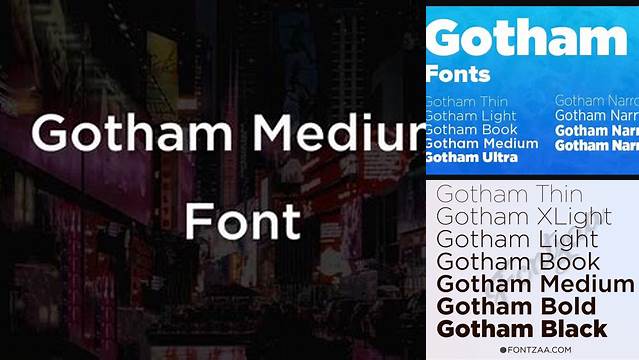
Hey everyone, are you looking to download Gotham Black Medium font for free? You've come to the right place! This article is your ultimate guide, packed with everything you need to know about this awesome font. We'll cover where to find it, how to install it, and even some cool ways to use it. So, let's dive in and get you set up with this fantastic typeface! Gotham Black Medium is a versatile font, perfect for a wide range of design projects. Whether you're working on a website, a print design, or a branding project, this font can make your work look professional and stylish. It's a favorite among designers because of its clean lines and modern aesthetic. Getting your hands on Gotham Black Medium is easier than you might think, and the free download options we'll explore will ensure you can start using it right away. Ready to enhance your designs? Let's get started!
Why Gotham Black Medium is a Designer's Dream
Alright, guys, let's talk about why Gotham Black Medium font is such a big deal in the design world. This font isn't just any typeface; it's a statement. Think of it as the backbone of your design, providing a solid foundation that complements any project. Its bold and clean appearance makes it incredibly readable, which is super important whether you're designing a website, a poster, or a magazine layout. What makes Gotham Black Medium stand out? Its versatility is a huge factor. It's a font that adapts to different styles and design needs. You can use it for headlines, subheadings, or even body text, and it always looks great. This adaptability makes it a go-to choice for designers working on a variety of projects. The font's simplicity is key. In a world of overly complex fonts, Gotham Black Medium offers a refreshing sense of clarity. It's not cluttered or distracting, which allows your message to shine through. This clean aesthetic makes it a great choice for projects where you want to emphasize the content rather than the font itself. The font's popularity is a testament to its quality and effectiveness. From corporate branding to creative projects, Gotham Black Medium is used by professionals everywhere. You'll find it in a variety of media, from websites and apps to print materials. This widespread use shows its reliability and its ability to make your work look professional. Furthermore, the font's aesthetic appeal is timeless. It doesn't feel dated or trendy, which means your designs will remain relevant for years to come. This is a valuable asset, especially if you're working on projects that require longevity. The font's design is also about legibility and impact. Its strong presence ensures that your headlines grab attention, while the carefully crafted letterforms maintain clarity even at smaller sizes. This means that Gotham Black Medium not only looks good but also performs well in various contexts. In short, Gotham Black Medium is more than just a font. It's a tool that empowers designers to communicate effectively, with style and clarity. It is no wonder that it's a favorite.
Gotham Black Medium in Action: Creative Uses and Design Tips
Alright, now that you've got Gotham Black Medium font installed, let's talk about how to make the most of it. This font is incredibly versatile, so the design possibilities are nearly endless. One of the best things about Gotham Black Medium is its ability to create a strong visual impact. It works wonders for headings and titles. Use it to make your main messages pop out and grab attention. It's perfect for websites, posters, and any design where you want to make a bold statement. Gotham Black Medium is also excellent for creating a modern, clean look. Its clean lines and simple design make it a great choice for minimalist designs. You can pair it with other fonts that complement it, or you can let it stand out on its own. Think about using it for logos, branding materials, and anything that needs a sophisticated touch. This font is a great choice for both print and digital designs. It is readable and looks good in various sizes, making it perfect for everything from website navigation to posters. Make sure you use it for things like brochures, business cards, and other promotional materials. It's also great for digital interfaces. The font's readability and style make it perfect for website design and app interfaces. Use it for headlines, menu items, and body text to create a consistent, professional look. When working with Gotham Black Medium, remember a few key design tips. First, consider pairing it with a different font for body text. A good rule of thumb is to use a font with a lighter weight for the body text to create a balanced look. The contrast between the bold headline and the lighter body text can create a visually appealing design. Experiment with sizes. Gotham Black Medium can look great in both large and small sizes. Adjust the font size to match the context of your design. Use it big for headlines, smaller for subheadings, and even smaller for body text. Be conscious of the letter spacing. Gotham Black Medium looks best when the letter spacing is adjusted just right. Try slightly increasing or decreasing the spacing to find what looks best for your design. Play with color and background. This font looks good in any color, so don't be afraid to experiment. Make sure there's enough contrast between the font and the background to make it easy to read. Consider the overall mood you want to create. Gotham Black Medium can be used in different designs, from serious corporate brands to creative projects. Make sure the font matches the mood and tone you're trying to convey.
Conclusion: Unleash Your Creativity with Gotham Black Medium
Alright, guys, we've covered everything you need to know about downloading and using Gotham Black Medium font. You've learned how to find it, how to install it, and how to get creative with it. Now it's time to go out there and start designing! This fantastic font will make your designs look more professional and eye-catching. Whether you're working on a website, a logo, or any other creative project, Gotham Black Medium is a versatile tool that can enhance your work. Don't be afraid to experiment and explore different ways to use it. Combine it with other fonts, play with colors, and see what you can create. The possibilities are truly endless! Remember to always respect the licensing terms and only use the font according to the permissions provided. Happy designing, and we can't wait to see what you create! So go on, download Gotham Black Medium, and let your creativity flow. You've got all the information and resources you need to get started. Best of luck, and have fun designing!